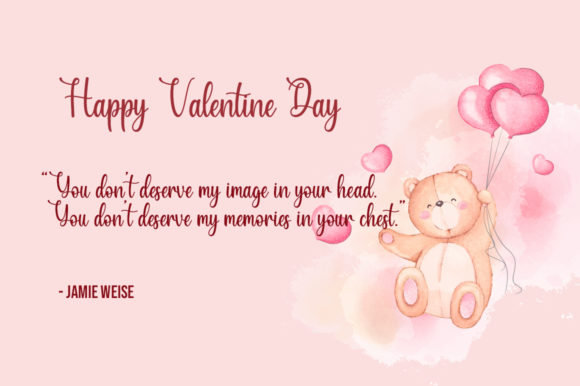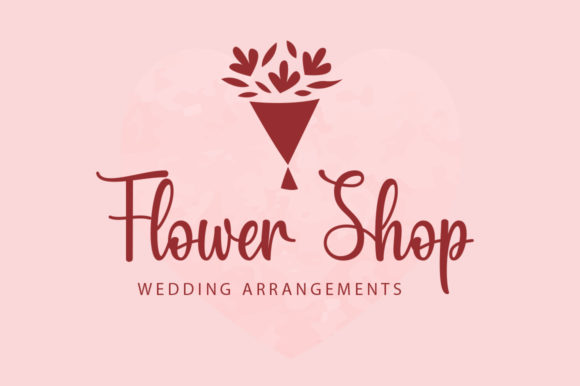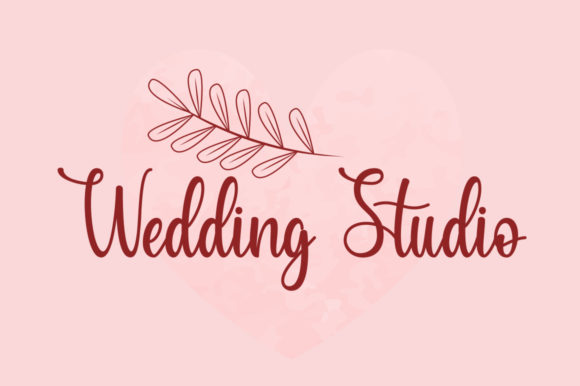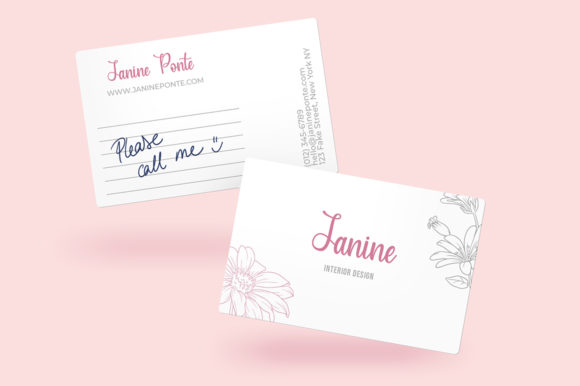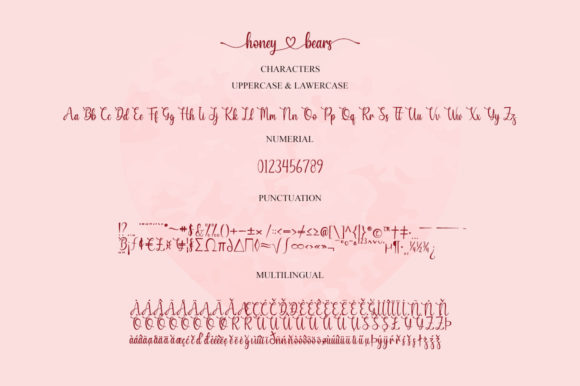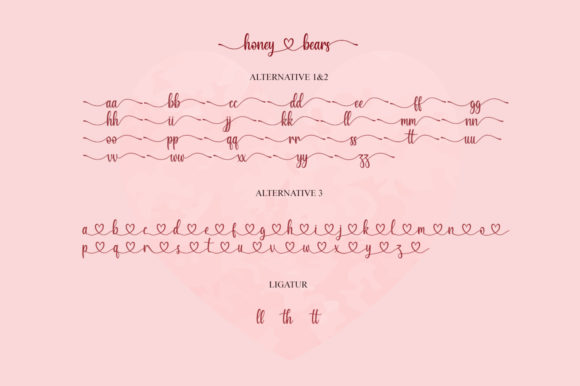
The Sweetest Touch for Your Designs: Introducing Honey Bears Font
Have you ever stared at a blank page, trying to bring your creative vision to life? The cursor blinks, and your mind goes blank. Suddenly, a burst of inspiration hits – a handwritten font with a whimsical touch that adds romance to your design. This is exactly what happens when you discover the Honey Bears Font, a beautiful handwritten font that adds a sweet flow to your projects.
This lovely font is perfect for invitations, thank you cards, quotes, greeting cards, logos, business cards, and any other design that needs a touch of warmth and elegance. With Honey Bears Font, you can add a personal and unique touch to your creations. And the best part? It’s PUA encoded, making it easy to access all the glyphs and swashes you need to make your designs truly special.
Honey Bears Font Key Features
- Font Family: Honey Bears Font is a unique, handwritten font family designed to evoke a sense of warmth and friendliness.
- Unique Characteristics: Honey Bears Font features a distinctive, handwritten style with varying letterforms, swashes, and flourishes, adding a touch of personality to any design.
Honey Bears Font Review
I recently had the chance to work with the Honey Bears font, and I must say, it’s a delightful addition to any design project. ✨ The font’s friendly and approachable nature makes it perfect for creating a warm and inviting atmosphere in your designs.
- The font’s custom illustrations and cute bear characters are a great touch, adding a playful and whimsical feel to your designs.
- The font’s versatility allows it to be used in a variety of contexts, from children’s books to advertising and even social media graphics.
- The font’s bold and colorful design makes it easy to read and understand, even at small font sizes.
However, there are a few limitations to consider: ⚠️ The font may not be the best choice for formal or professional projects, as its playful nature may not be suitable for more serious or formal designs.
Overall, I think the Honey Bears font is a great addition to any designer’s toolkit. While it may not be the best choice for every project, it’s perfect for creating fun and engaging designs that are sure to capture the attention of your audience.
Tips for Getting the Most Out of Honey Bears Font
Here are some tips to help you get the most out of Honey Bears Font:
- Use it for titles, headings, and emphasis.
- Combine it with other fonts for a unique look.
- Experiment with different font sizes and styles.
Honey Bears Font is perfect for:
- Children’s book illustrations.
- Whimsical and playful designs.
Alternatives to Honey Bears Font
Great Vibes is a fun, cursive script font that is perfect for adding a playful touch to your designs. It is ideal for use in logos, social media graphics, and advertisements where a friendly and approachable feel is desired. Great Vibes has a similar whimsical feel to Honey Bears Font, but with a more refined and elegant appearance.
Carolyna Pro is a modern script font that is great for creating eye-catching headings and titles. It has a fluid, handwritten feel that works well in both digital and print designs. Compared to Honey Bears Font, Carolyna Pro has a more sophisticated and polished appearance, making it suitable for a wider range of design applications.
Lobster is a popular script font that is often used in informal and creative contexts. It has a fun, playful feel that is perfect for use in social media graphics, posters, and other promotional materials. While Lobster has a similar casual feel to Honey Bears Font, it has a more rugged and edgy appearance, making it better suited for bold and attention-grabbing designs.
Q: What is the recommended font size for the Honey Bears Font?
The recommended font size for the Honey Bears Font is between 12-24 points, depending on the intended use and desired legibility. For digital use, such as web design or mobile apps, a font size between 14-18 points is recommended. For print materials, such as business cards or brochures, a font size between 12-18 points is recommended.